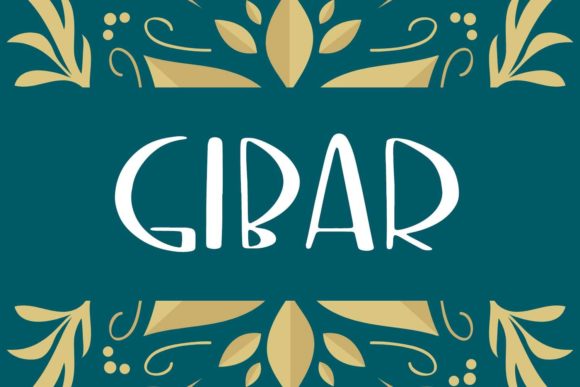
Gibar Font: A Playful and Modern Display Font for Creative Minds
In the world of typography, fonts play a crucial role in bringing creative ideas to life. A well-designed font can elevate a design project, making it more visually appealing and engaging. One such font that has gained popularity among crafters and graphic artists is the Gibar Font. In this article, we’ll dive into the world of Gibar Font, exploring its features, benefits, and uses.
What is Gibar Font?
Gibar is a playful and modern display font designed to add a touch of creativity to your projects. Its unique and quirky style makes it perfect for crafters, graphic artists, and anyone looking to add some personality to their designs. Gibar Font is great for a variety of projects, from branding and advertising to packaging and digital media.
Key Features of Gibar Font
- Playful and Modern Design: Gibar Font boasts a playful and modern design that’s sure to grab attention.
- Display Font: Gibar is a display font, making it perfect for headlines, titles, and other prominent text elements.
- Quirky and Unique: Gibar’s quirky and unique style sets it apart from other fonts, making it ideal for creative projects.
- Easy to Read: Despite its playful design, Gibar Font is easy to read, even at smaller sizes.
Benefits of Using Gibar Font
So, why should you use Gibar Font in your projects? Here are some benefits of using this fantastic font:
- Adds Personality to Your Designs: Gibar Font adds a touch of personality to your designs, making them more engaging and memorable.
- Perfect for Creative Projects: Gibar’s playful and modern design makes it perfect for creative projects, such as branding, advertising, and packaging.
- Easy to Pair with Other Fonts: Gibar Font is easy to pair with other fonts, making it versatile and flexible.
- Supports Multiple Languages: Gibar Font supports multiple languages, making it a great choice for global brands and projects.
Use Cases for Gibar Font
Gibar Font is versatile and can be used in a variety of projects, including:
- Branding and Logo Design: Gibar Font is perfect for branding and logo design, adding a touch of personality to your brand identity.
- Advertising and Marketing: Gibar’s playful and modern design makes it great for advertising and marketing materials, such as brochures, flyers, and posters.
- Packaging Design: Gibar Font is ideal for packaging design, adding a touch of creativity and personality to your product packaging.
- Digital Media: Gibar Font can be used in digital media, such as social media graphics, website headers, and email newsletters.
Tips and Tricks for Using Gibar Font
Here are some tips and tricks for using Gibar Font effectively:
- Use it as a Display Font: Gibar Font is designed as a display font, so use it for headlines and titles.
- Pair it with Other Fonts: Gibar Font is easy to pair with other fonts, so experiment with different combinations to find the perfect look.
- Adjust the Size and Color: Adjust the size and color of Gibar Font to suit your design needs.
- Use it Consistently: Use Gibar Font consistently throughout your design project to create a cohesive look.
In conclusion, Gibar Font is a playful and modern display font that’s perfect for crafters and graphic artists alike. Its unique and quirky style makes it ideal for creative projects, adding a touch of personality and creativity to your designs. With its ease of use, versatility, and range of benefits, Gibar Font is a great choice for anyone looking to elevate their design projects.